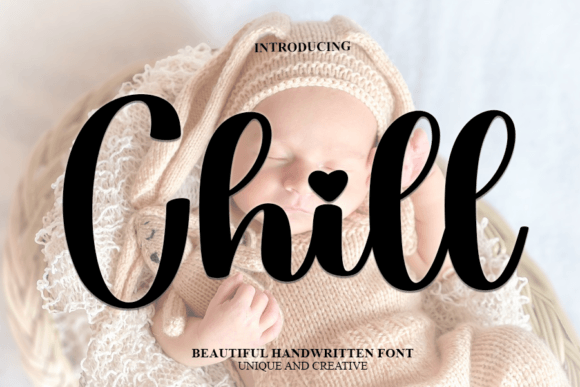
The Ultimate Guide to Chill Font: Elevate Your Designs with a Modern Twist
Have you ever been in the middle of a design project, and suddenly, you just can’t seem to find the right font? I recall a particularly frustrating moment when I was working on a branding project for a trendy coffee shop. The client wanted a font that was both modern and elegant, but everything I tried seemed either too bland or too over-the-top. That’s when I stumbled upon the Chill font, and it instantly transformed my design.
First Impressions: A Balanced and Versatile Font
Chill is a cool handwritten font that exudes a modern vibe with its spotless form, inspired by classic calligraphy. It’s not too thin and not too thick – it’s perfectly balanced and varied, making it an excellent choice for a wide range of projects. Whether you’re a designer, crafter, or creative hobbyist, Chill is sure to enhance the beauty of your work.
What I Love About Chill Font
- ✨ Balanced and varied strokes: The font’s thickness is just right, making it highly legible and visually appealing.
- ✅ Modern yet classic feel: Chill strikes the perfect balance between modernity and classic calligraphy inspiration.
- 💫 OpenType features and glyphs: The font comes with a range of OpenType features, including stylistic alternates and glyphs, which allow for endless creativity.
While Chill is an excellent font, there are a few minor quirks to be aware of:
- 🤔 Limited multilingual support: Chill’s character set is somewhat limited, which might make it less suitable for projects requiring extensive multilingual support.
- ⚠️ Occasional kerning issues: As with any font, you might encounter some kerning issues, especially when using the font at smaller sizes.
The Story Behind Chill Font
Chill was designed with the intention of creating a modern, versatile font that captures the essence of classic calligraphy while feeling fresh and contemporary. The designer aimed to strike a balance between elegance and approachability, making Chill suitable for a wide range of applications, from branding and advertising to personal projects and crafts.
Q: What makes Chill Font unique?
A: Chill’s uniqueness lies in its balanced and varied strokes, which give it a modern yet classic feel. Its extensive OpenType features and glyphs also add to its versatility.
Q: Does Chill Font support multiple languages?
A: While Chill has a comprehensive character set, its multilingual support is somewhat limited. It’s best suited for projects primarily using English or similar languages.